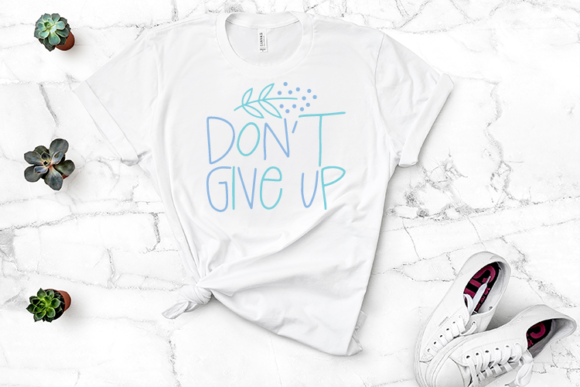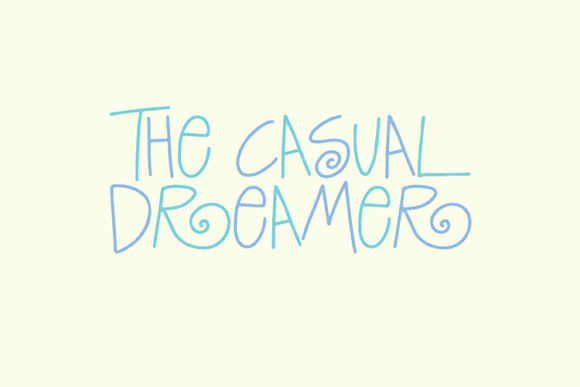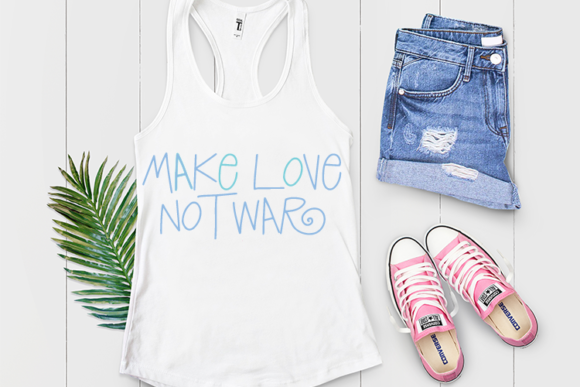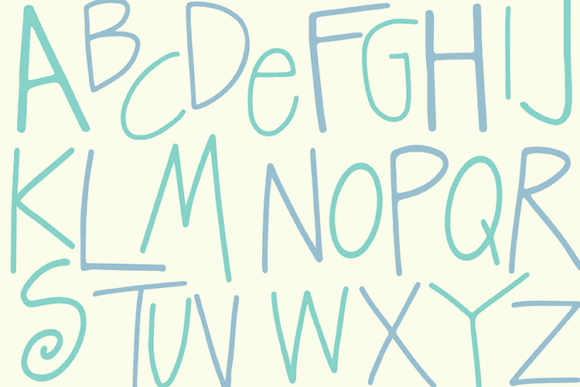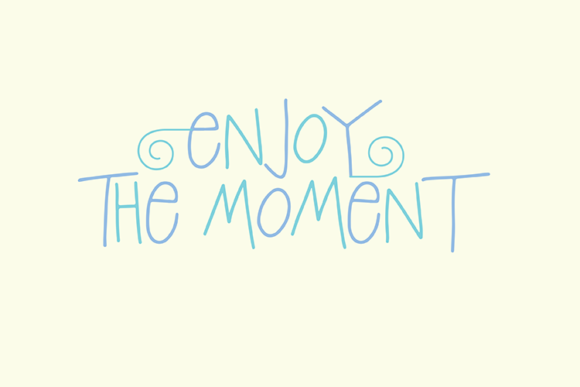
Personal Regular Font
About Personal Regular Font
Personal Regular is a sweet and friendly handwritten font, designed to easily become a true favorite. Use this font to elevate your projects to the highest levels!